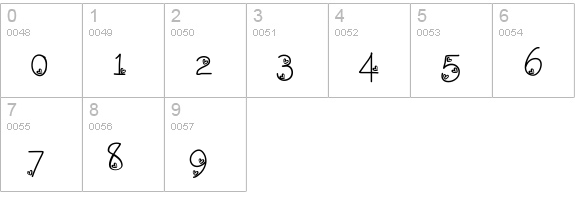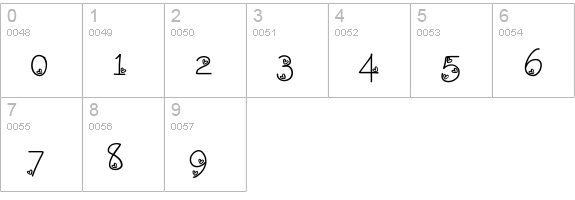
LoveNessThree Font Details
LoveNessThree font is a captivating and enchanting typeface that is sure to capture your heart with its delicate curves and elegant strokes. This font exudes a sense of romance and tenderness, making it perfect for creating beautiful wedding invitations, heartfelt love letters, or any project that requires a touch of love. With LoveNessThree, every letter is meticulously crafted to convey a sense of warmth and affection. Its flowing and graceful design adds a touch of sophistication to any text, elevating your message and making it truly stand out. Whether used in print or on digital platforms, this font will surely leave a lasting impression. What makes LoveNessThree even more special is that it is available for free! Yes, you read that right. This stunning font can be freely downloaded at FontsMarket.com, allowing you to add a touch of love to your designs without breaking the bank. Its availability ensures that everyone can access and utilize this beautiful font to bring their creative visions to life. So why wait? Download LoveNessThree today and let it ignite a spark of love and beauty in your designs. Whether you are designing a romantic greeting card, a heartfelt quote poster, or a passionate logo, this font will be your go-to choice. Let LoveNessThree be the language of love in your typography, and watch as it mesmerizes your audience with its charm and elegance.